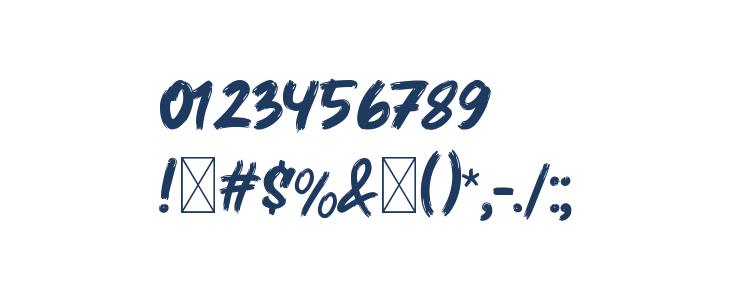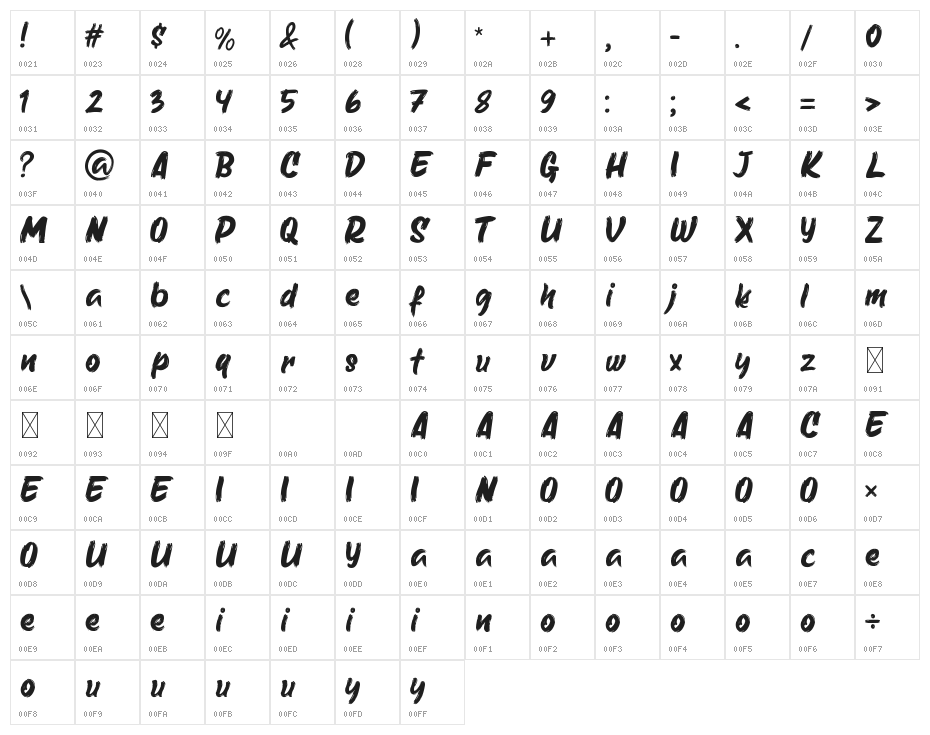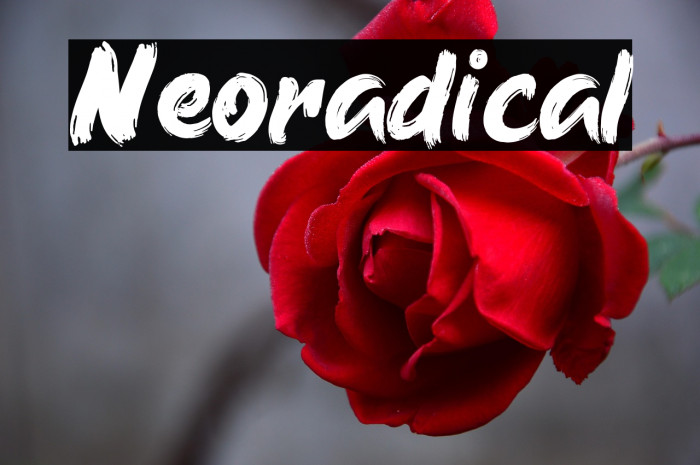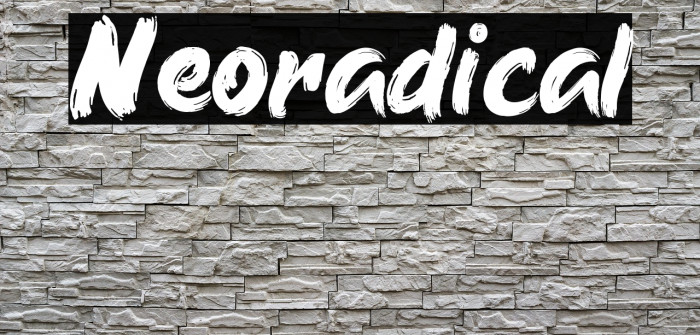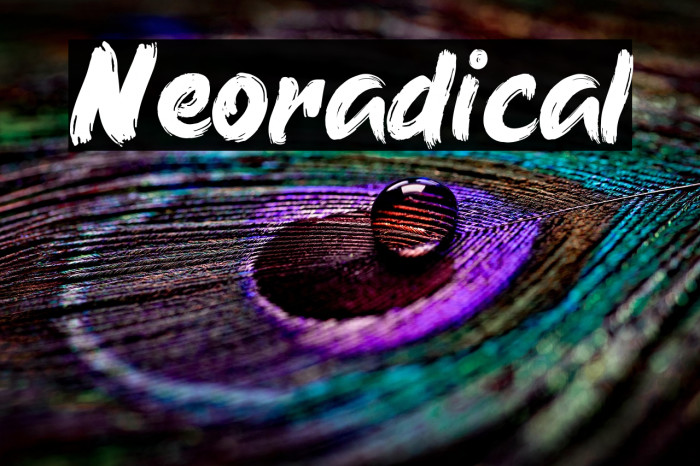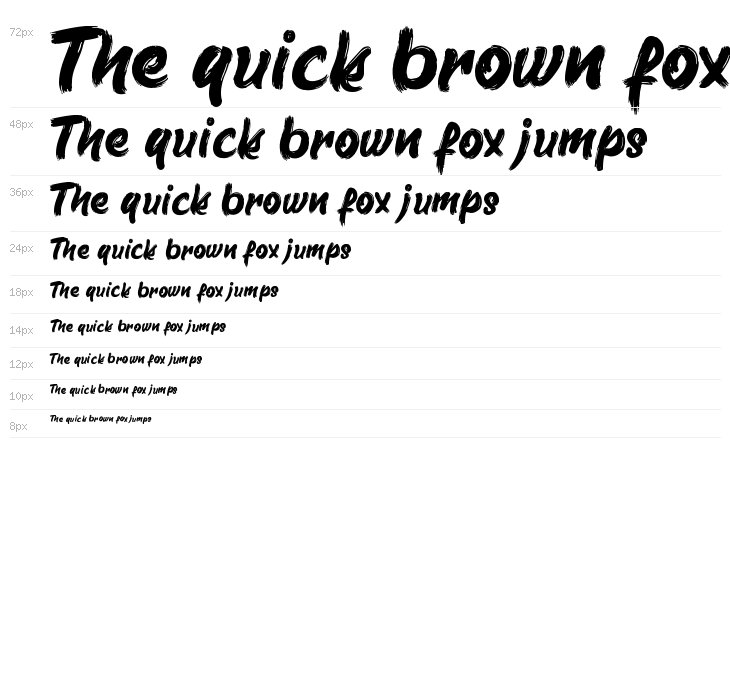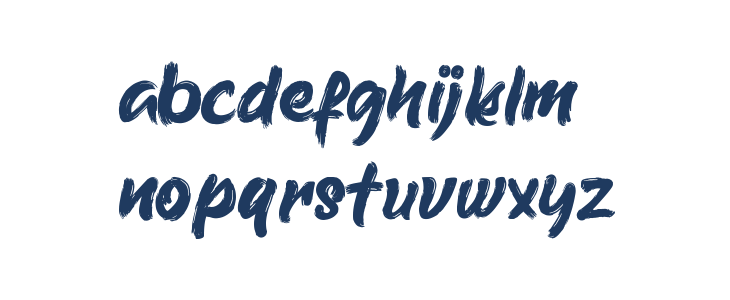
Neoradical Font
Neoradical Description
This font exudes a bold and energetic style, characterized by its brush-like strokes and dynamic appearance. The letters have a hand-painted feel, with varying thicknesses that add a sense of movement and vitality. The uppercase and lowercase letters maintain a consistent flow, while the numbers and special characters complement the overall aesthetic. The font's rough edges and irregularities contribute to its raw and expressive nature, making it ideal for projects that require a strong visual impact.
| Overall Style | Modern, Artistic |
| Proposed Projects | Perfect for posters, album covers, branding, and any project needing a bold, artistic touch. |